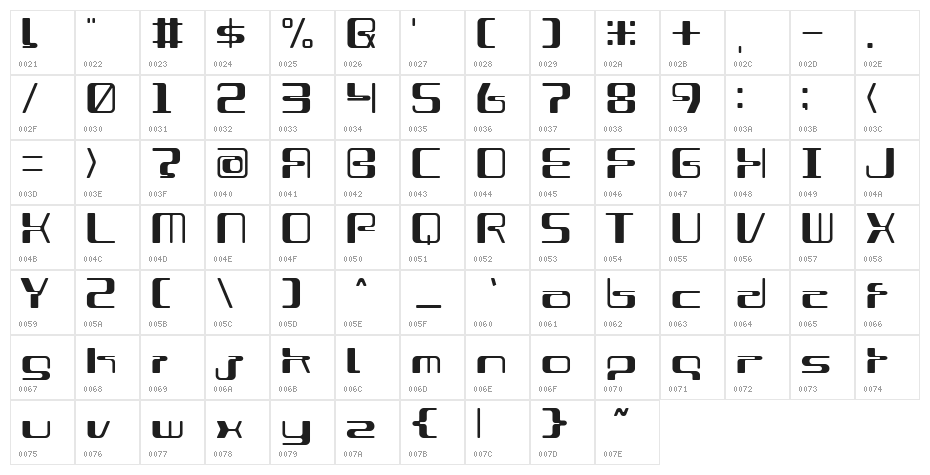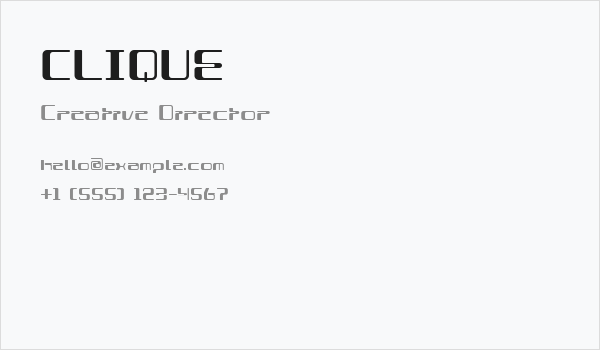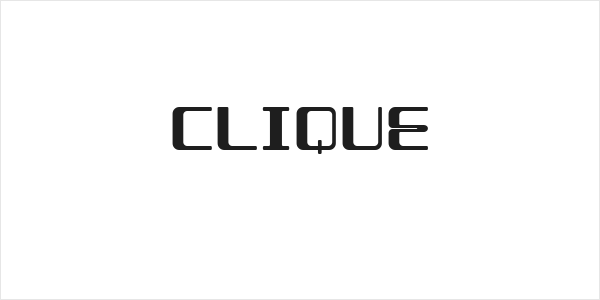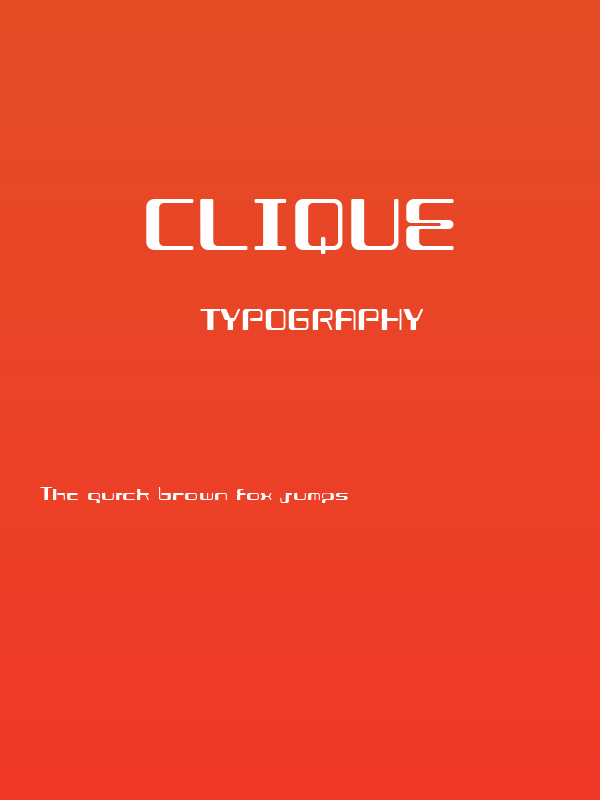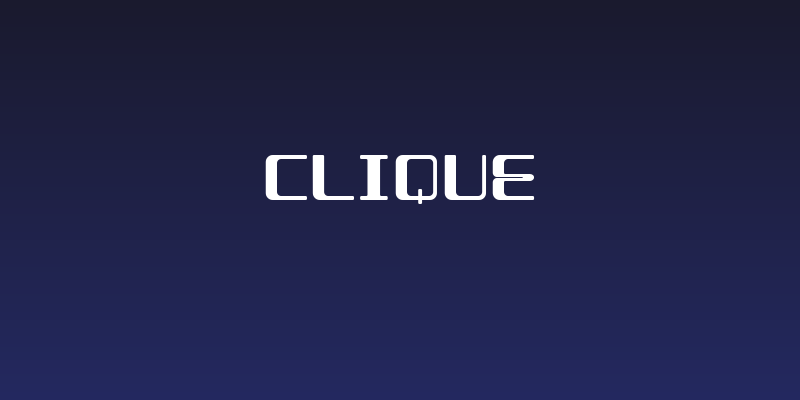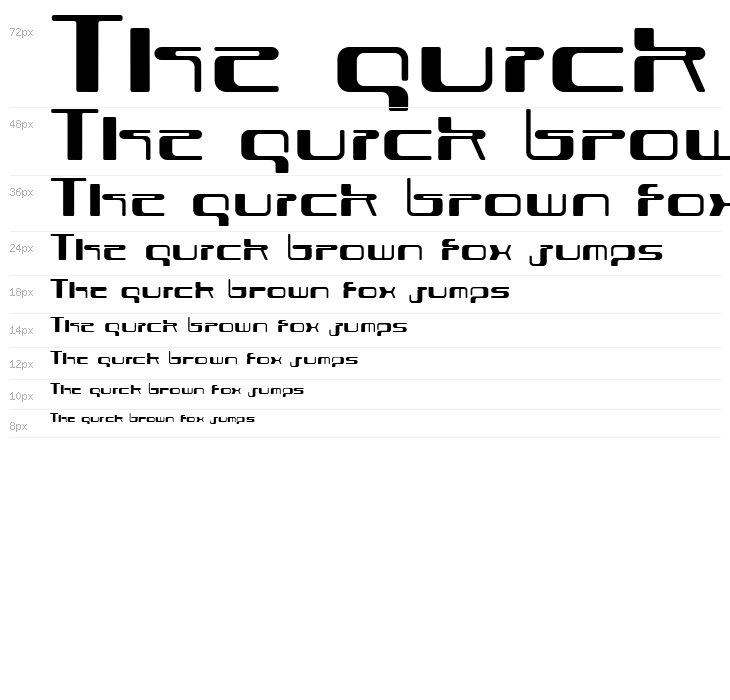
CLIQUE Font
CLIQUE Description
This font features a modern and futuristic design with a unique blend of geometric shapes and clean lines. The characters are constructed with a combination of straight edges and rounded corners, giving it a distinct, tech-inspired appearance. The uppercase letters are bold and striking, while the lowercase letters maintain a consistent style with slightly more curvature. Numbers and special characters follow the same design principles, ensuring uniformity across all glyphs. The font's overall look is sleek and contemporary, making it ideal for projects that require a cutting-edge aesthetic.
| Use Case | Headlines, Logos, Digital Interfaces |
| Proposed Projects | Ideal for technology branding, digital interfaces, futuristic posters, and innovative product packaging. |